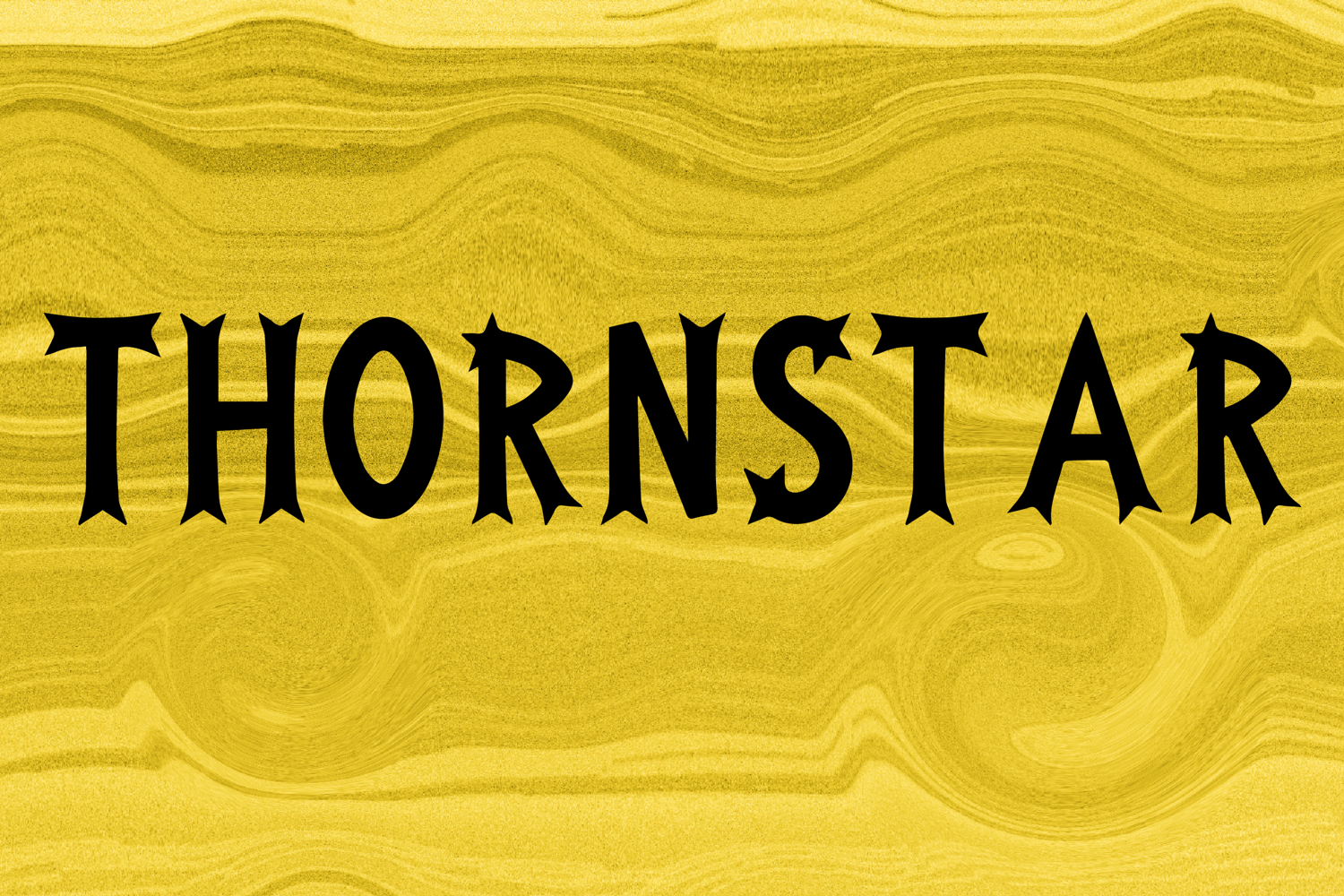
Thornstar
Thornstar is a bold decorative display font with a sharp gothic-inspired style and striking star-accented character. Its uppercase letterforms feature pointed thorn-like terminals, tall dramatic shapes, and subtle star details that create a powerful, edgy, and memorable look. Designed with uppercase letters A–Z and numbers 0–9, Thornstar is perfect for logos, branding, posters, packaging, headlines, and creative projects that need a bold and distinctive statement.